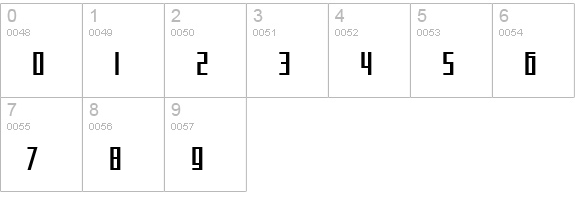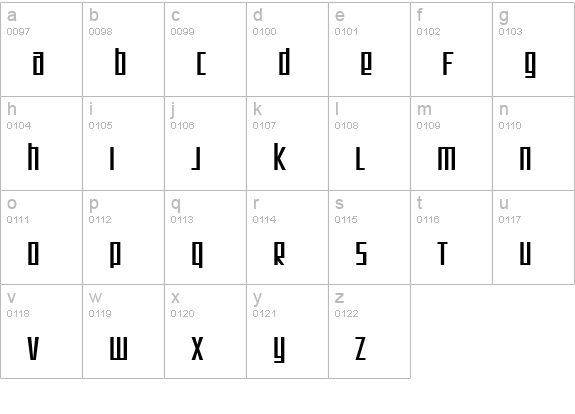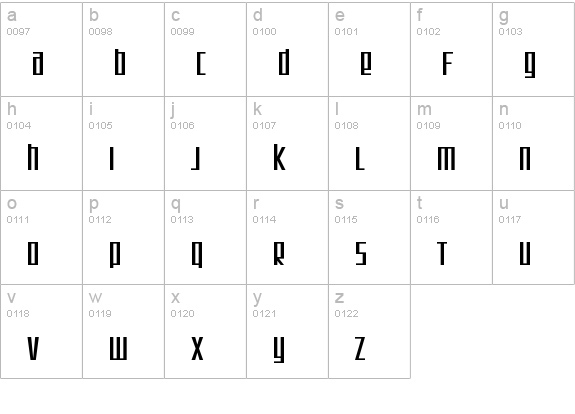
SF Square Root Font Details
Introducing SF Square Root, a futuristic and sleek font that exudes innovation and modernity. With its clean lines and geometric shapes, this font is perfect for projects that require a contemporary and cutting-edge look. SF Square Root offers a unique twist on traditional sans-serif fonts, with its squared edges and bold design. Its versatility allows it to be used in a wide range of applications, from branding and logo design to website headers and promotional materials. One of the standout features of SF Square Root is that it is available for free download at FontsMarket.com. This means that you can easily access this remarkable font and incorporate it into your creative projects without any added cost. Whether you're a graphic designer looking to add a touch of sophistication to your designs or a business owner in need of a fresh and modern font for your branding, SF Square Root is the perfect choice. Its free availability makes it even more appealing, allowing you to elevate your projects without breaking the bank. Download SF Square Root today at FontsMarket.com and unlock a world of possibilities. Embrace the future of typography and let SF Square Root take your designs to new heights.